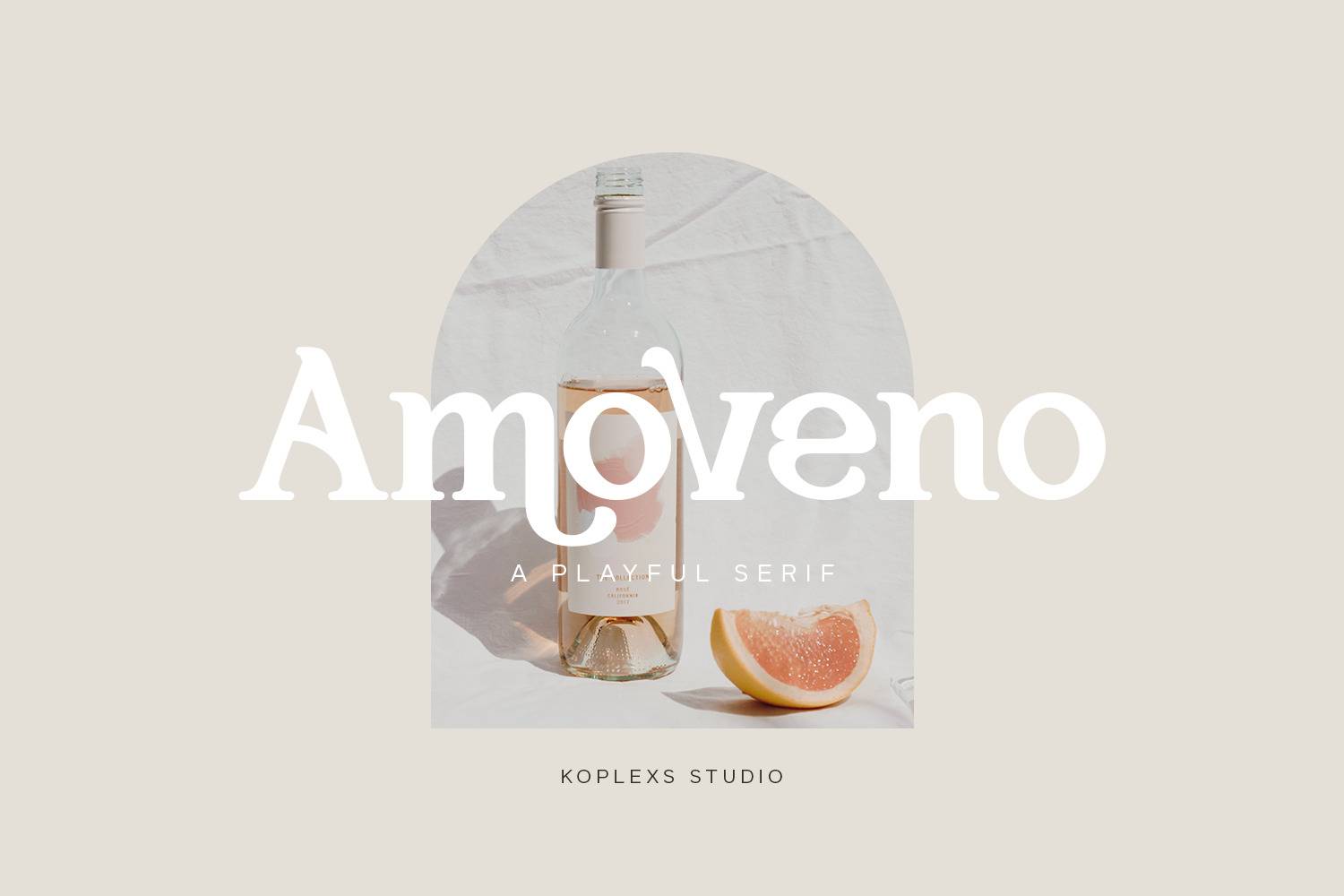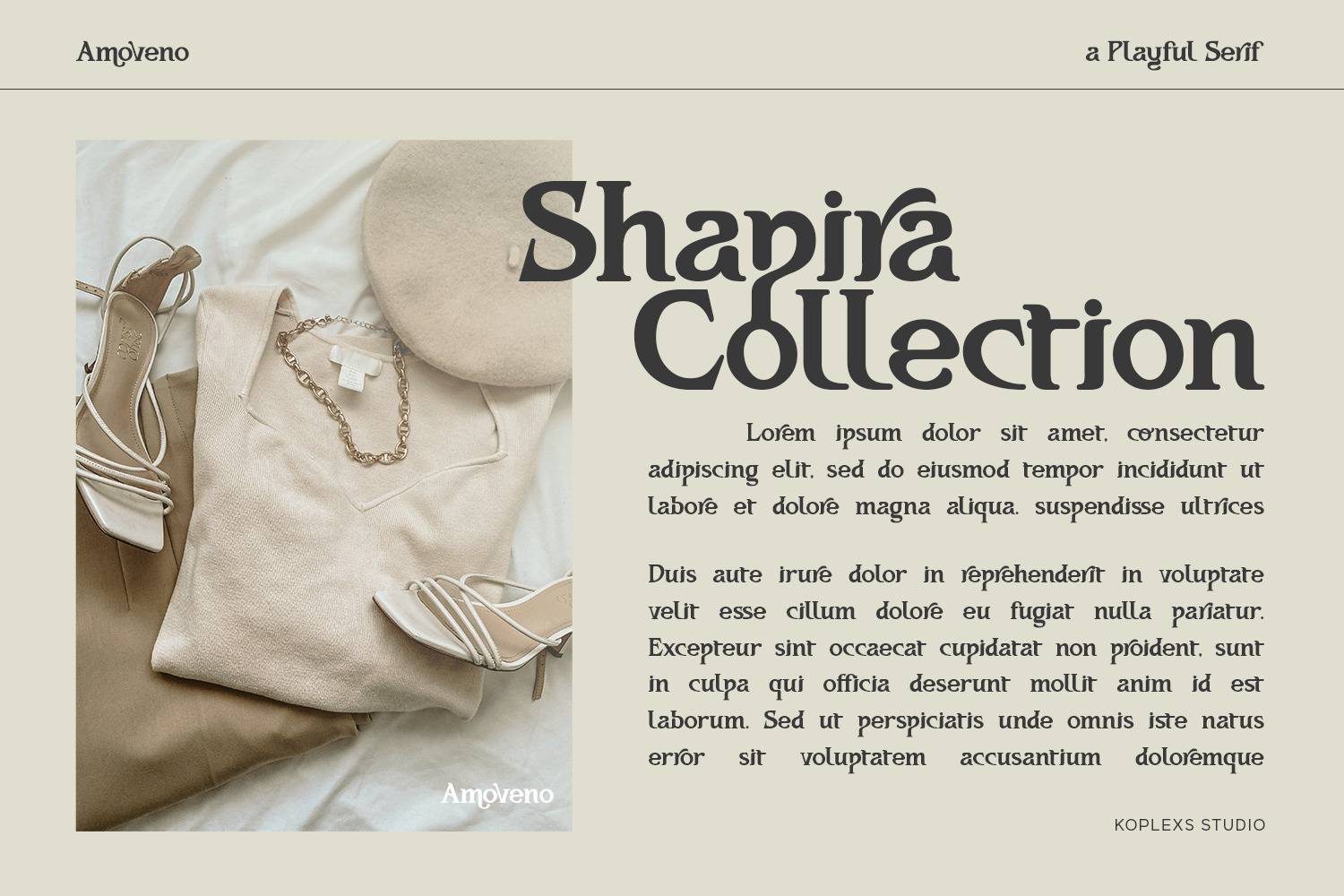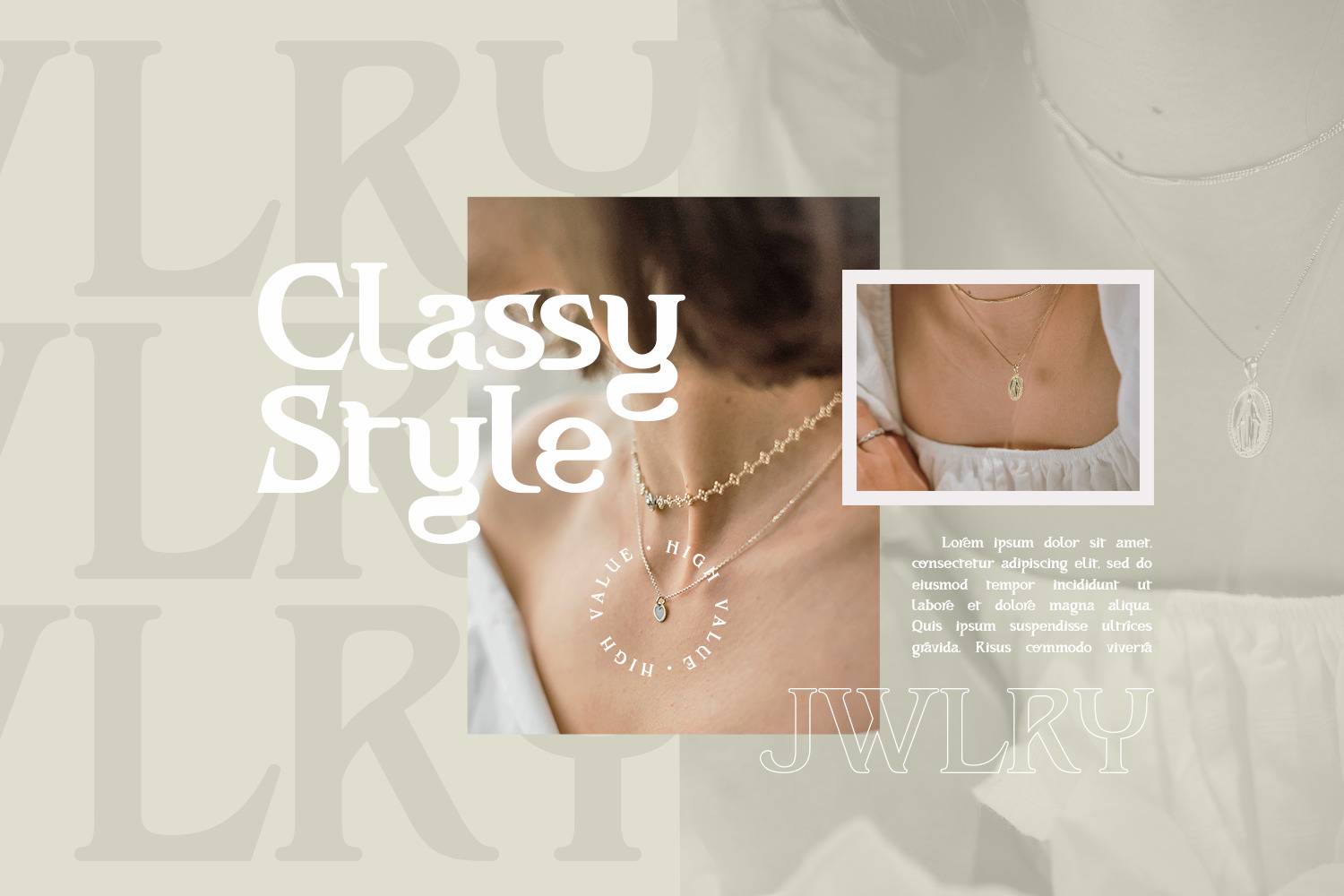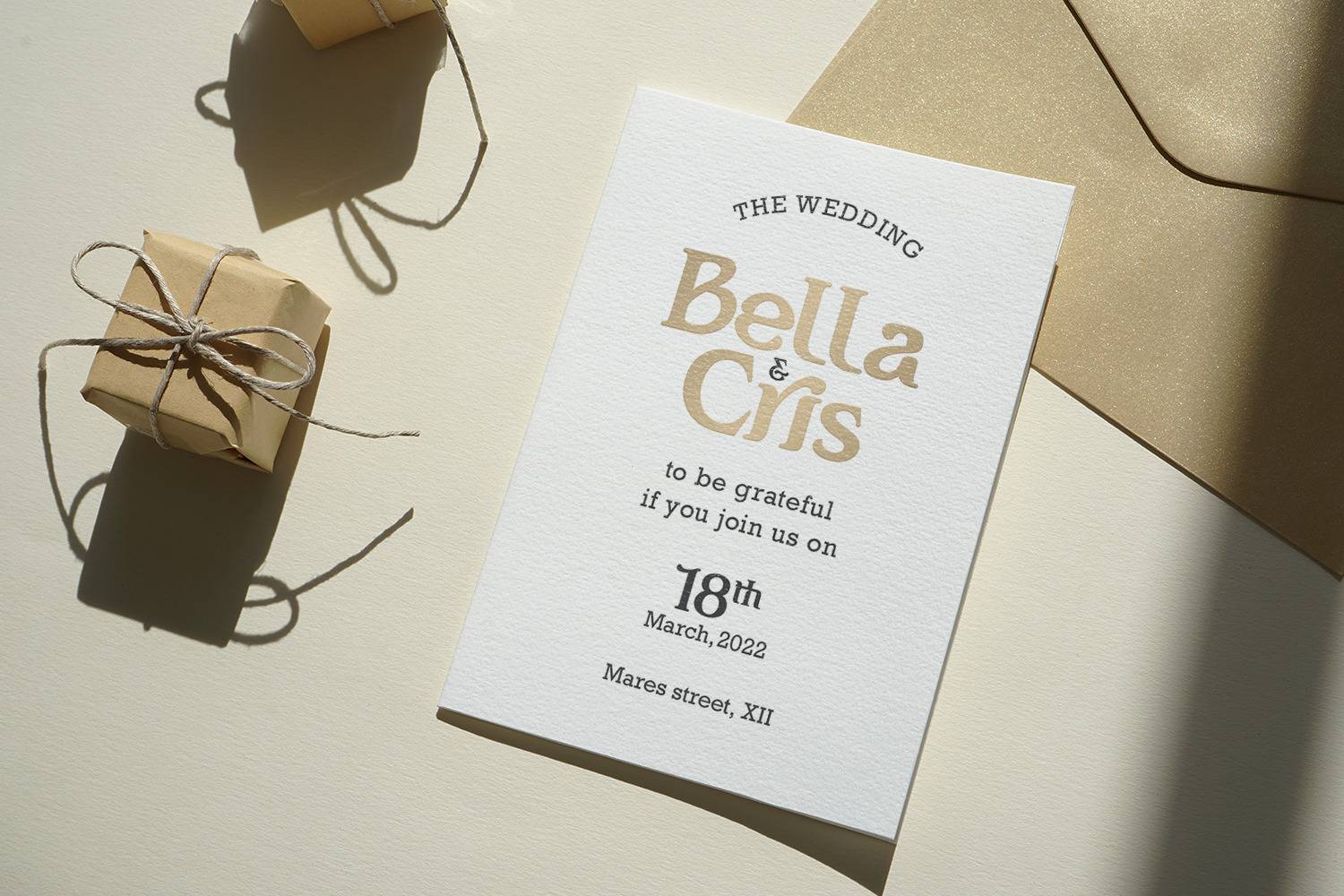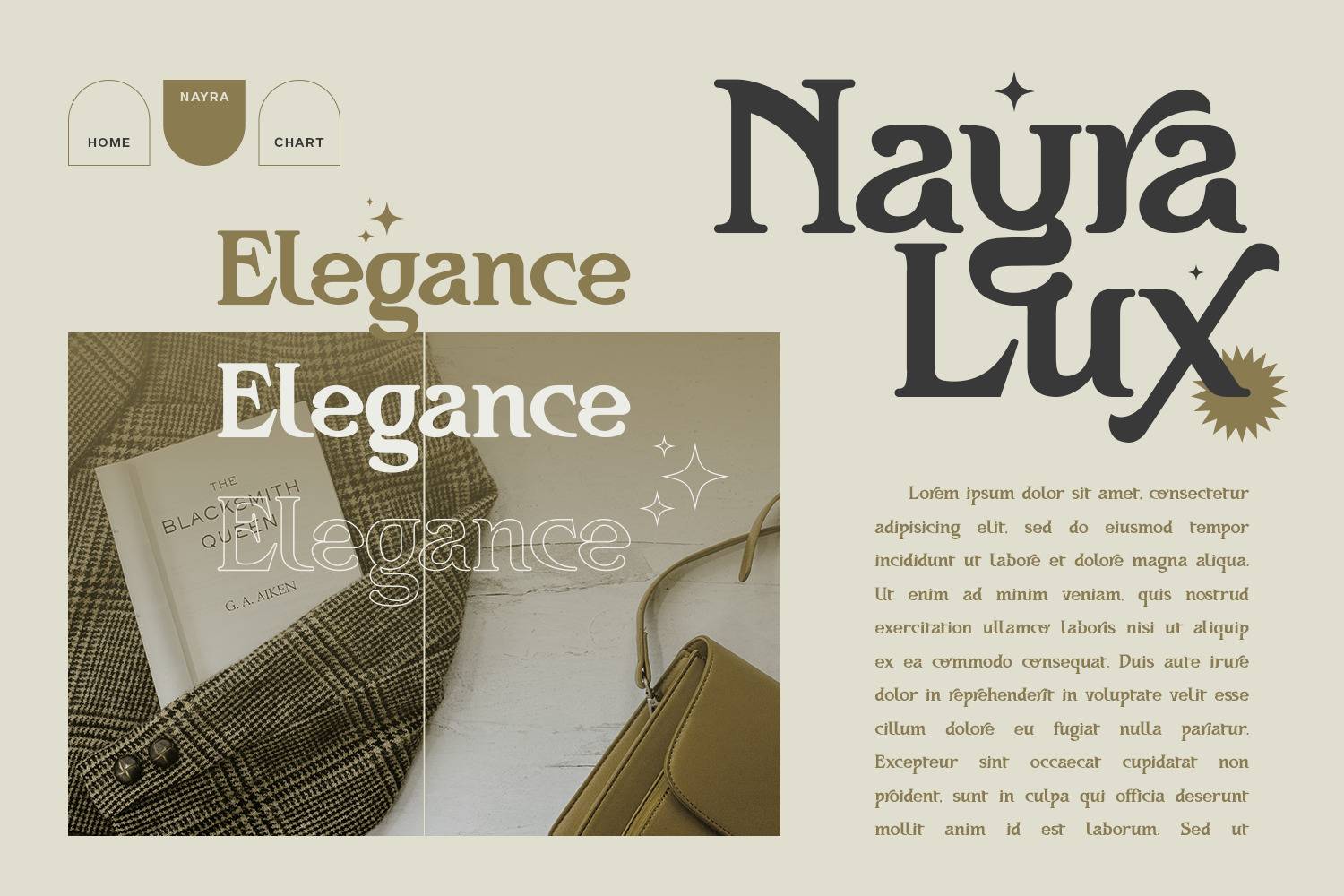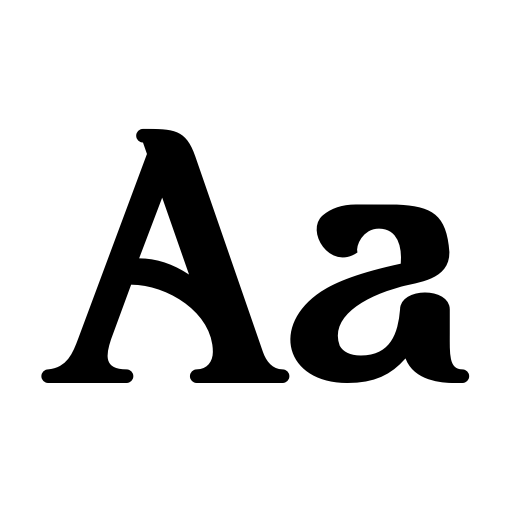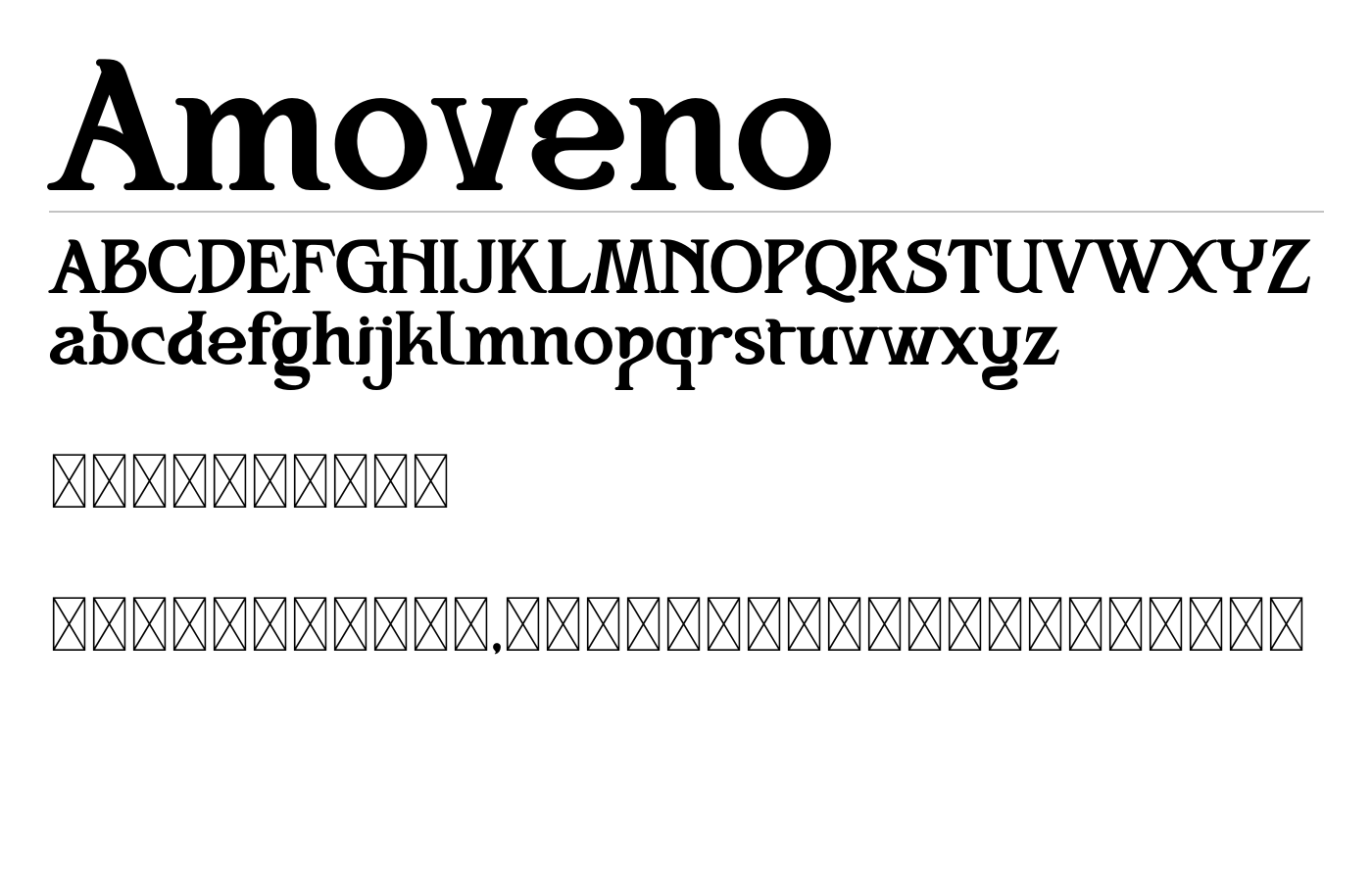
Amoveno is a serif font with a distinctive blend of classic and quirky elements, featuring strong, bracketed serifs and moderate stroke contrast that give it a refined yet approachable character. Its unique letterforms, like the curved tail on the Q and the stylized ampersand, add personality while maintaining readability, making it ideal for editorial headlines, logos, and branding that seeks a blend of elegance and individuality. This font works well for projects desiring a sophisticated but slightly unconventional feel.
Amoveno Font
About Amoveno Font